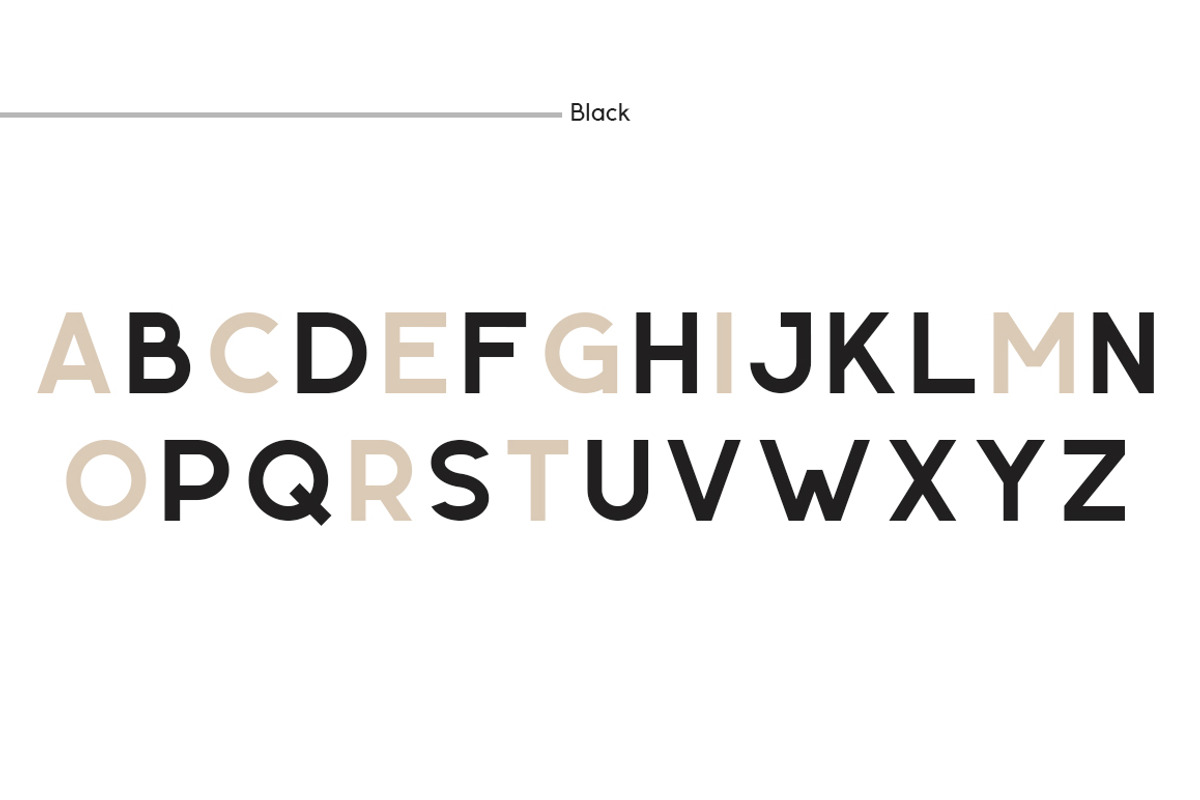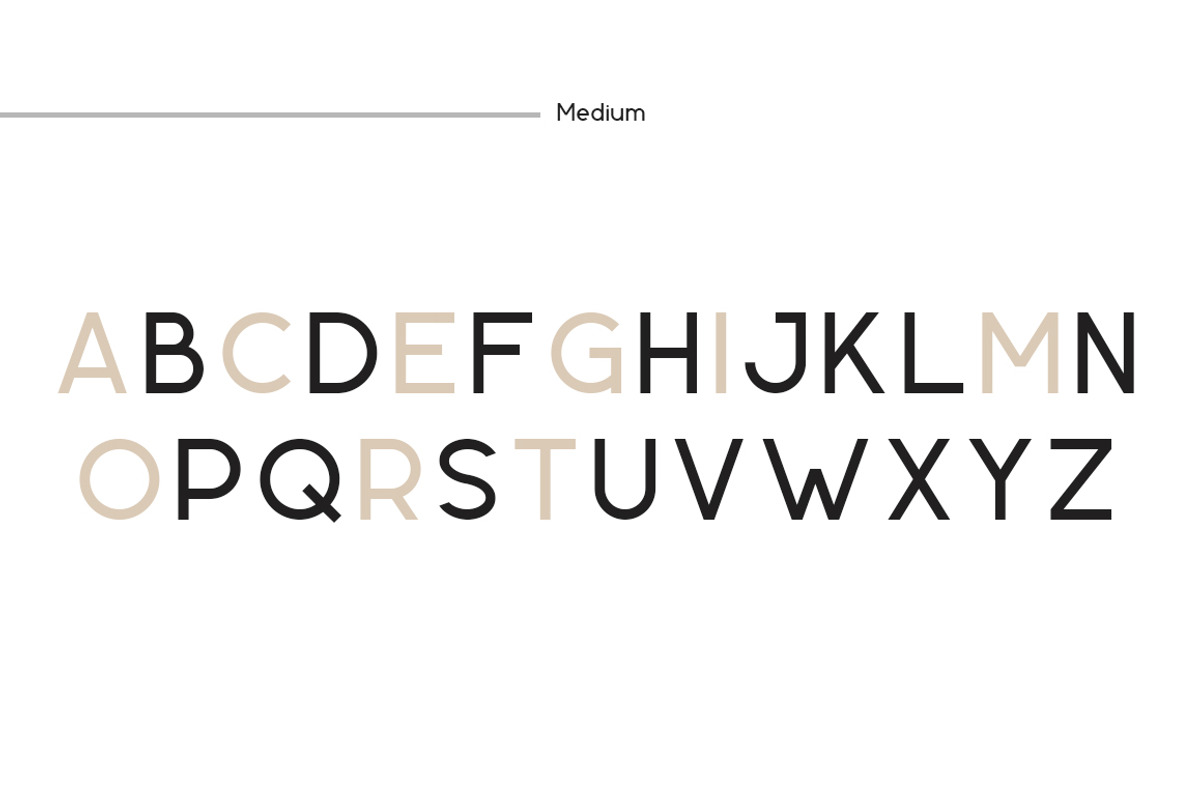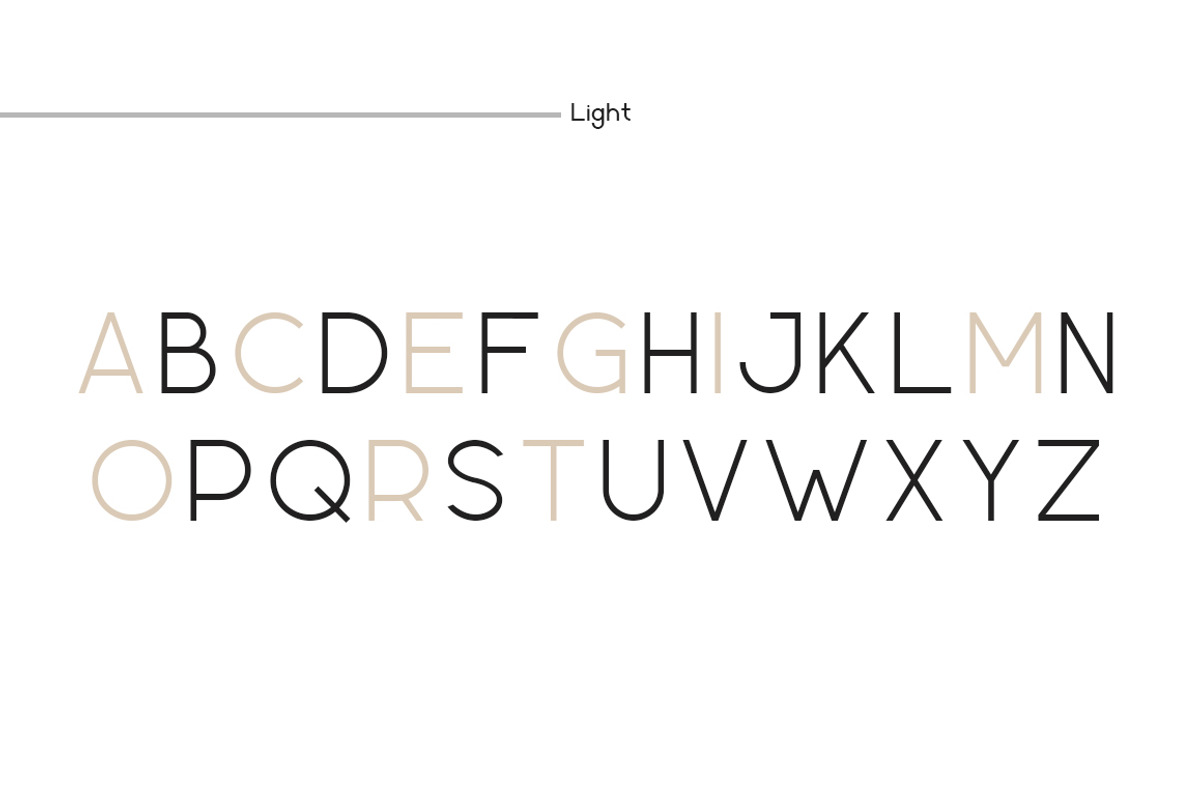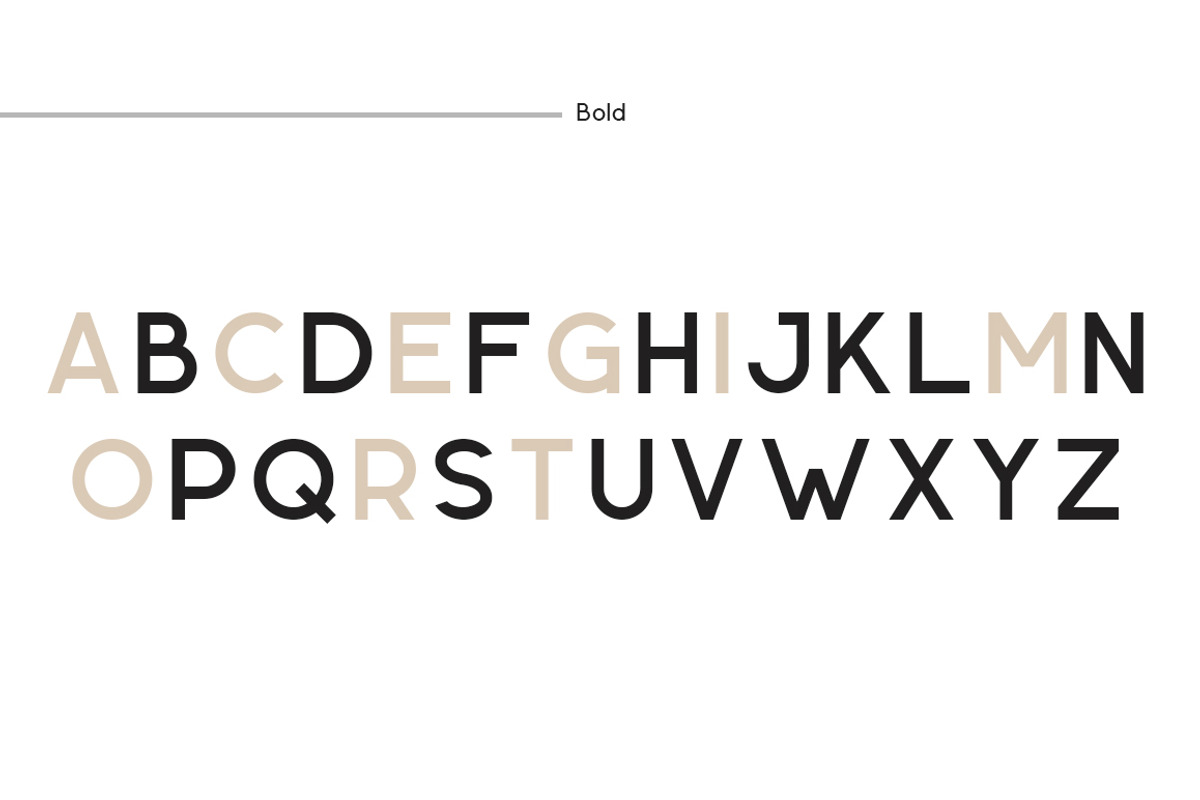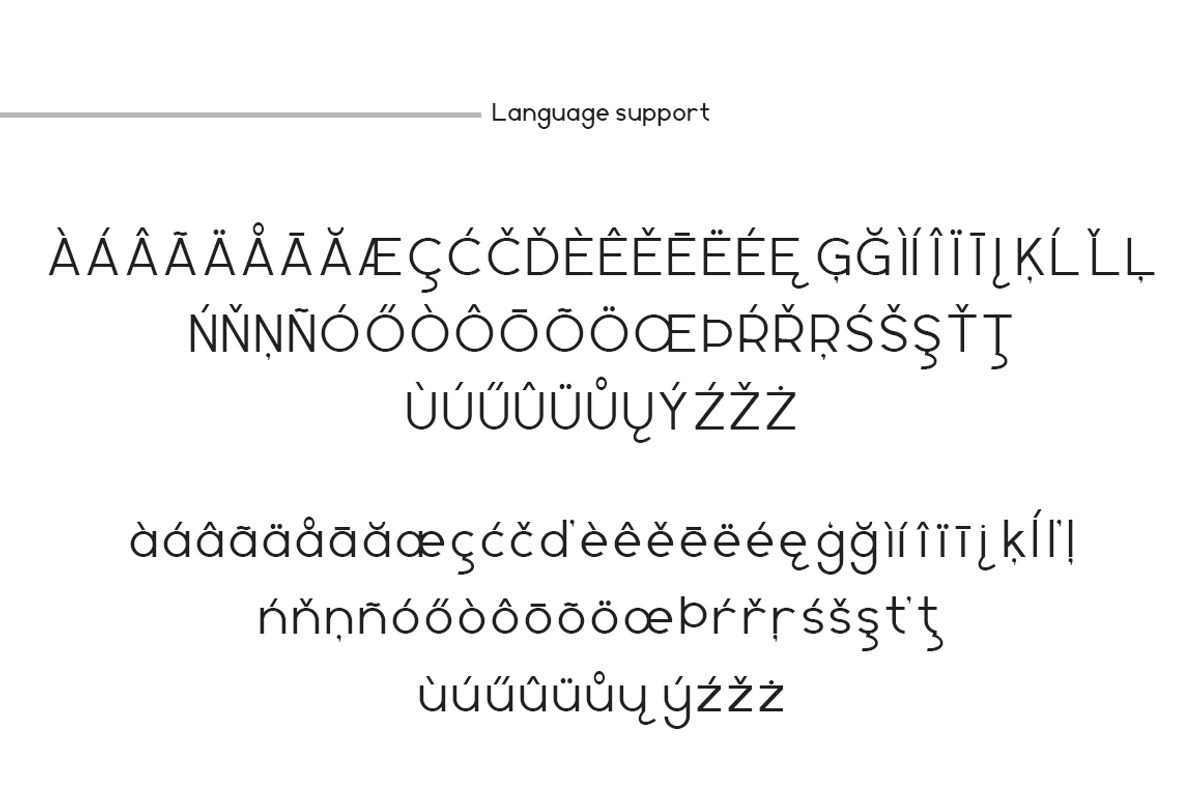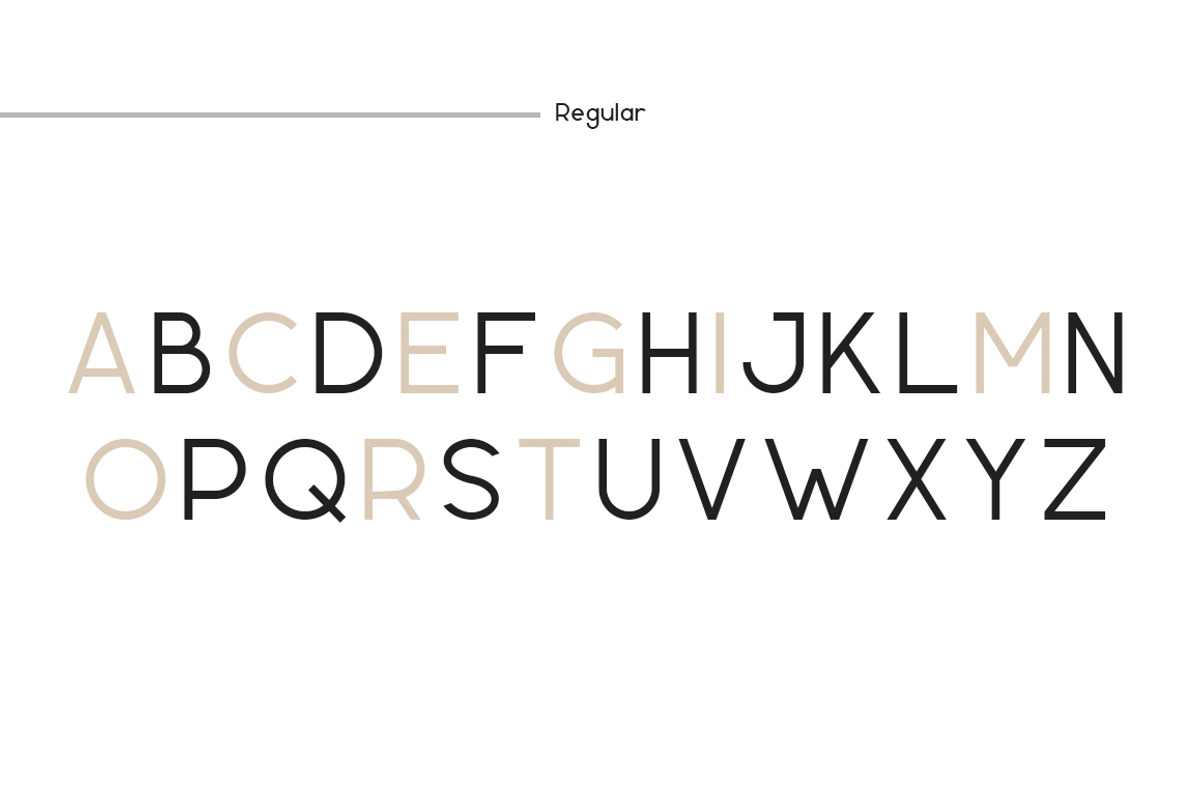
Geometrica Sans - Type Family
Geometrica Sans is geometric type family designed for everything sharp and geometric. Each letter is designed using the most basic shapes in geometry.
The font family is available in 6 weight's:
- Geometric Sans Thin
- Geometric Sans Light
- Geometric Sans Regular
- Geometric Sans Medium
- Geometric Sans Bold
- Geometric Sans Black
Language support - Russian, Central European, Cyrillic, Latin and more.